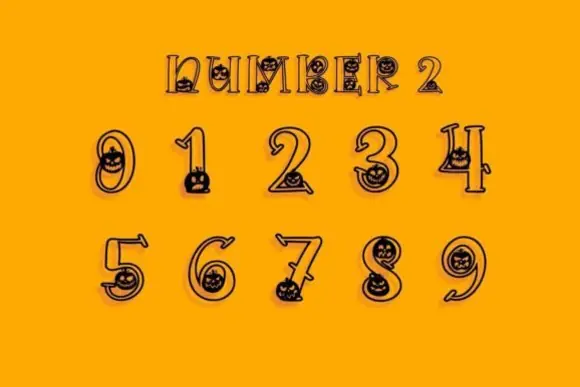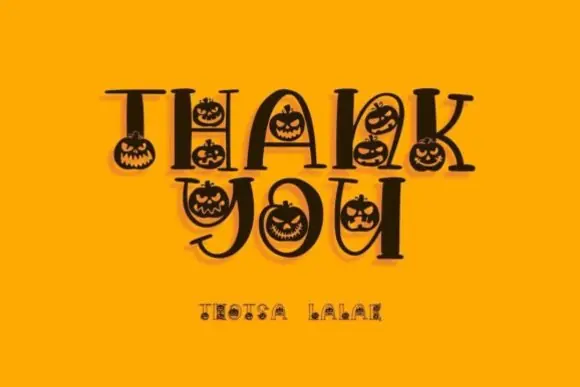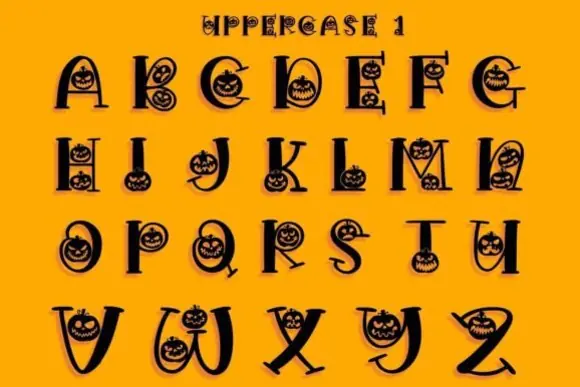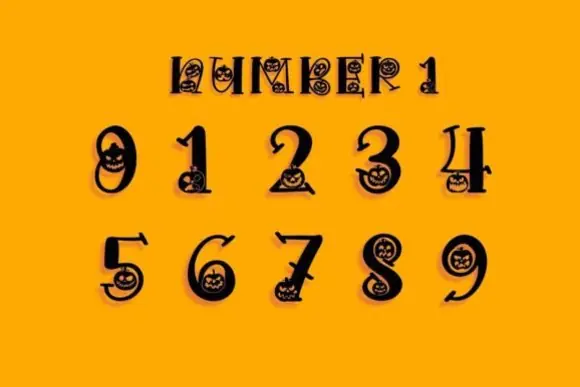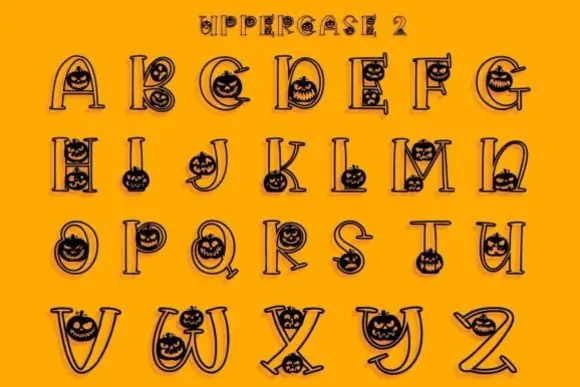
Create fun, festive, and eye-catching October designs with Halloween Pumpkin Font, a cool decorative font made especially for the Halloween season. This font is designed with different pumpkin faces placed across various alphabetical positions, giving your typography a playful and spooky Halloween personality.
Halloween Pumpkin Font is perfect for designers, crafters, teachers, small business owners, and digital product sellers who want to create standout seasonal artwork. Its pumpkin-themed decorative style makes it ideal for Halloween party invitations, posters, greeting cards, t-shirt designs, mugs, stickers, printable wall art, classroom decorations, social media graphics, banners, labels, and craft projects.
This font is a great choice for projects that need a cute, spooky, and festive pumpkin look. Whether you are creating Halloween merchandise, October party graphics, kids’ Halloween designs, or digital decorations, Halloween Pumpkin Font helps your text feel more fun, seasonal, and memorable.
Halloween Pumpkin Font is a strong choice for creating fun, spooky, and pumpkin-filled Halloween designs that instantly capture the spirit of October.